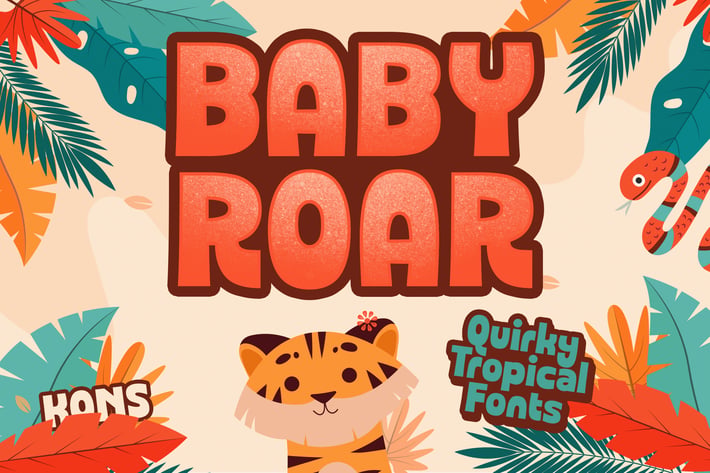
Baby Roar - Quirky Playful Fonts
Feel that cutie kiddies roar with the Baby Roar, a quirky playful fonts.
Perfectly fit for your logo, branding, story book cover, kids branding, apparel, toys, game, anytime you need a fun touch to the visual, Baby Roar is the answer.